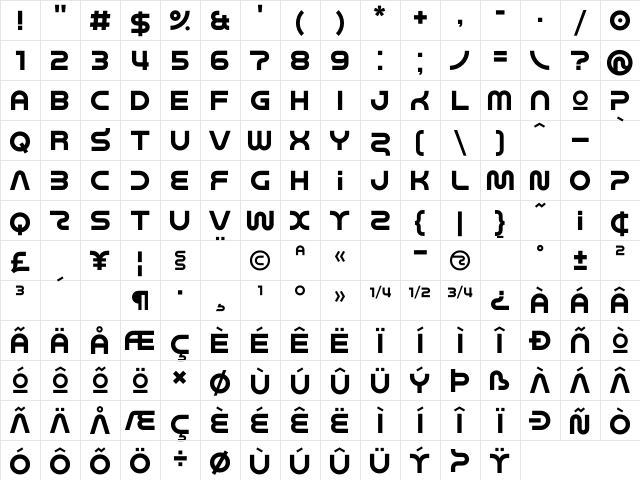
Wagamama Regular
| Foundry | Ryoichi Tsunekawa |
| Designer | Ryoichi Tsunekawa |
Design Context for Wagamama Typeface
Wagamama is a composed and adaptable typeface that performs quietly and consistently across a wide range of design contexts.